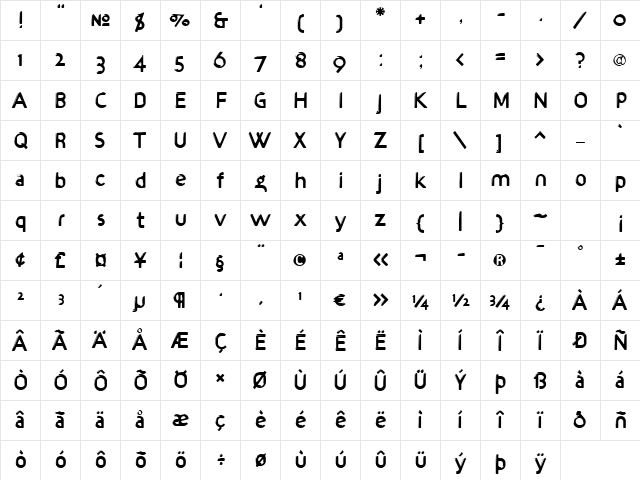
TargetMold Regular
Design Context for TargetMold
TargetMold is a composed and adaptable typeface that performs quietly and consistently across a wide range of design contexts.
Pro Tip: Use TargetMold in both headline and body roles to test its range before committing to a single application.